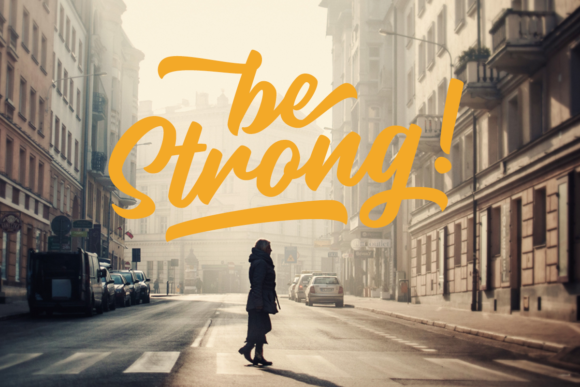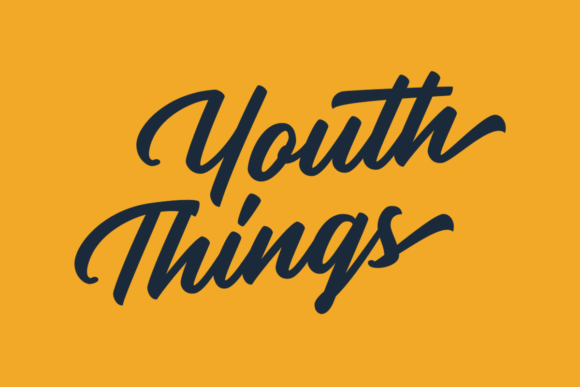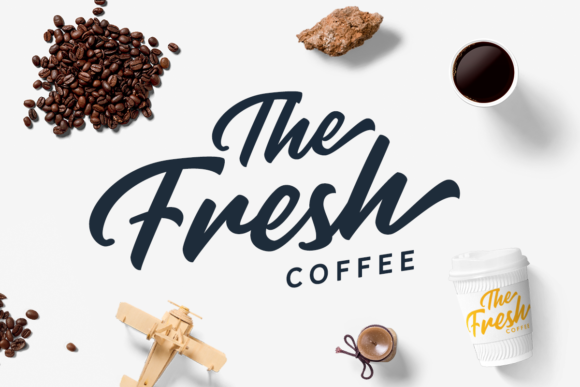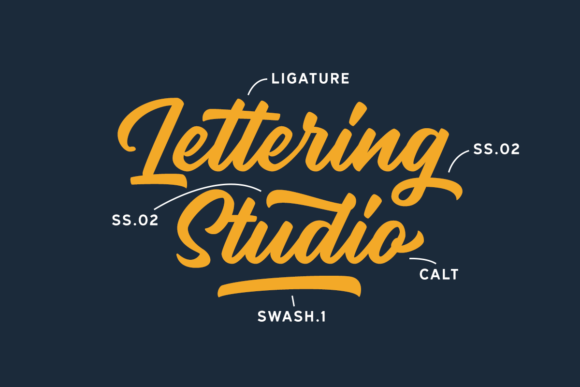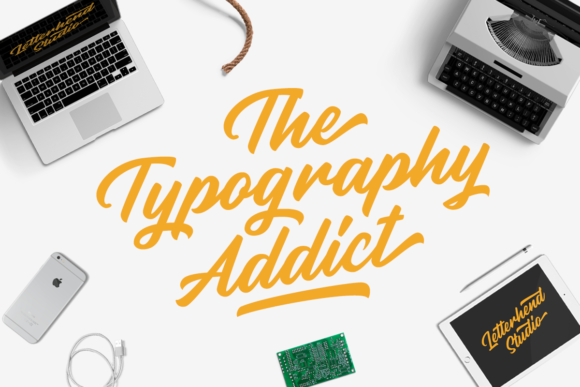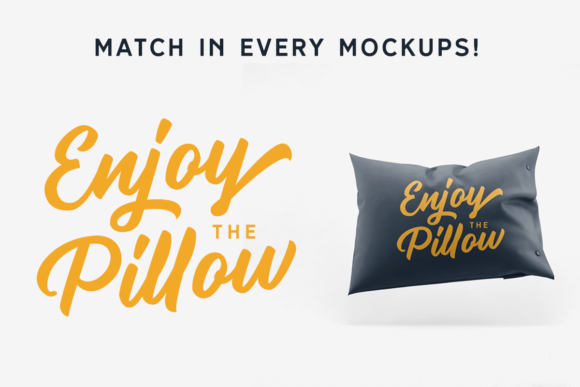
Introduction to Rupture Duo Font
As a designer, have you ever been stuck in a creative rut, struggling to find the perfect font to bring your project to life? You’re not alone. We’ve all been there, staring blankly at a sea of font options, desperate for something that truly stands out. But what if I told you there’s a game-changing solution waiting for you?
Enter the Rupture Duo Font, a bold and modern font duo that seamlessly combines two stunning typefaces to give your designs a unique edge. With its sleek and sophisticated design, this font duo is the perfect resource for any creative project that demands high quality and visual impact.
Key Features of Rupture Duo Font
- Rupture Duo Font is a high-quality, free design resource ideal for creative projects.
- This font family comes in two styles: Rupture Duo Regular and Rupture Duo Bold, each with a transparent background.
- Rupture Duo Font features a unique, modern design with a wide range of applications, including logos, graphics, and typography.
- Rupture Duo Font is a versatile design resource that can elevate any creative project with its modern and sleek aesthetic.
Honest Review: Rupture Duo Font
As a designer, I’m always on the lookout for high-quality design resources that can elevate my creative projects. Recently, I came across the Rupture Duo Font, and I’m excited to share my honest review with you.
- ✨ Unique and modern design aesthetic that’s perfect for modern branding and design projects.
- ⚠️ Limited character set, which may not be ideal for complex design projects.
- ⚠️ No transparent background option, which can be a bit restrictive for designers who need to create designs with custom backgrounds.
Overall, I’m impressed with the Rupture Duo Font, and I think it’s a great addition to any designer’s toolkit. While it may have some limitations, its unique design aesthetic and high-quality font files make it a valuable resource for creative projects. With a little creativity and experimentation, I think designers can get the most out of this font and create stunning designs.
Tips for Getting the Most Out of Rupture Duo Font
Experiment with layering the font over different images and design elements to create unique and visually appealing designs. You can also combine the font with other design resources, such as icons and graphics, to enhance your creative project.
The Rupture Duo Font is ideal for various creative projects, including branding, marketing materials, and digital graphics. Its transparent background and high-quality design make it a versatile resource for designers and non-designers alike.